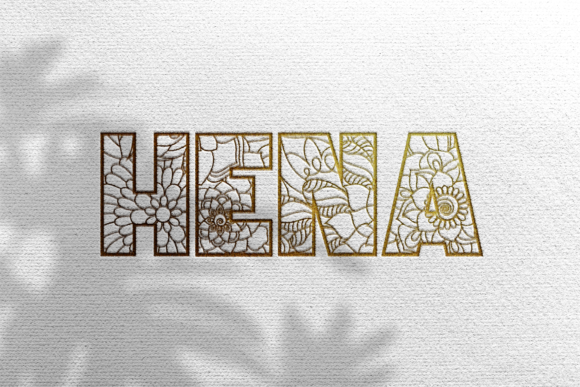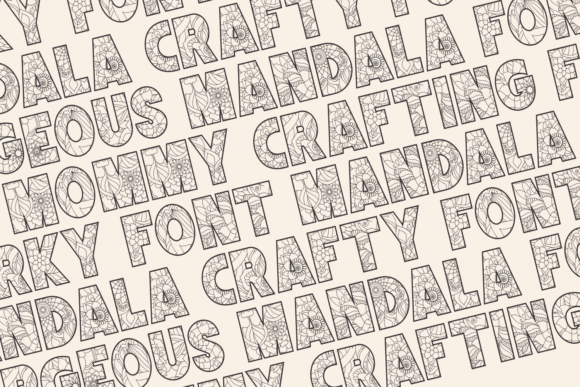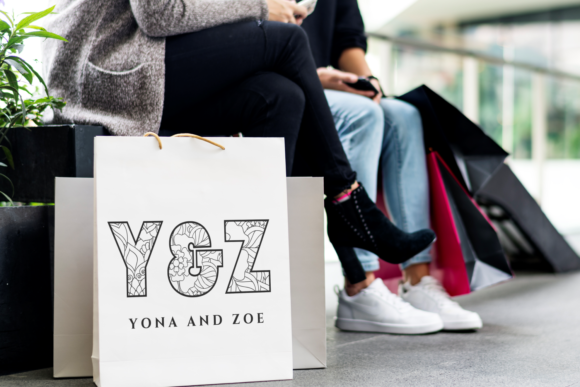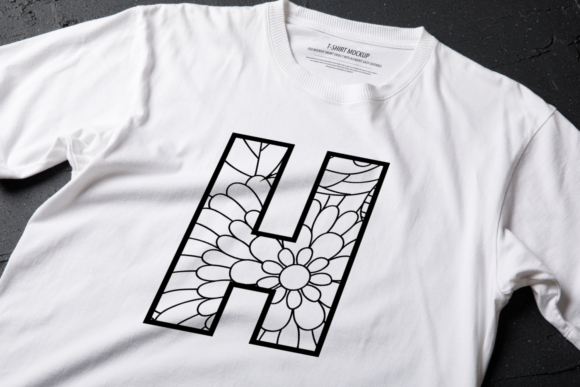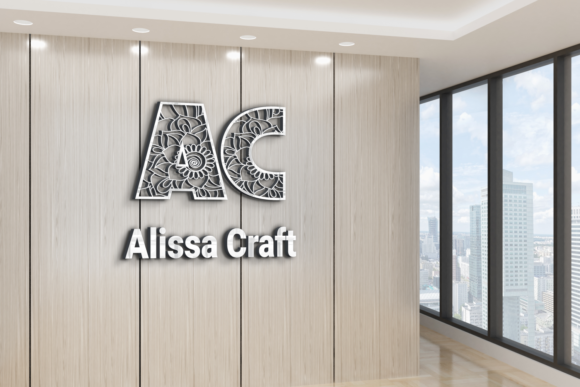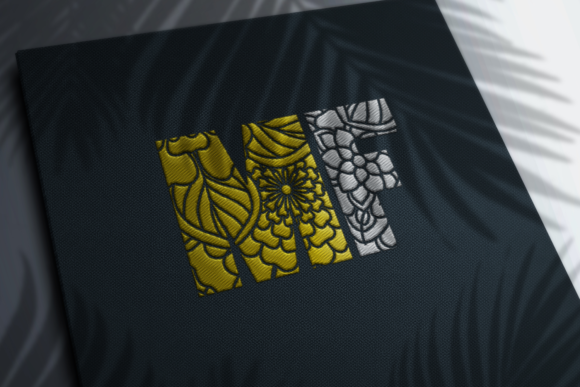
Introduction to Keyzha Font
Remember that moment when you’re brainstorming ideas for your next creative project and you’re struggling to find the perfect font to bring it to life? That’s exactly what I’m talking about. You’ve got a vision, a concept, and a whole lot of enthusiasm, but the right font is missing to tie everything together. That’s where the Keyzha Font comes in – a game-changing, high-quality display font that’s sure to elevate your design to the next level.
With its bold, chunky letters and beautiful design, the Keyzha Font is a design resource that’s hard to ignore. Whether you’re working on a graphic design project, a logo, or even just a social media post, this font is sure to make it stand out. Plus, with its transparent background option, you can easily layer it over any image or background to create a truly unique look.
Key Features of Keyzha Font
- High-quality design resource ideal for creative projects and personal use.
- Unique, modern design with a transparent background, making it perfect for overlaying on images or videos.
- Perfect for use in graphic design, digital art, and other creative pursuits, where a modern and elegant font is desired.
Honest Review: Keyzha Font
As a designer, I’m always on the lookout for high-quality design resources that can elevate my creative projects. The Keyzha Font is one such resource that I recently had the opportunity to work with.
Here are some aspects that I found particularly noteworthy:
- ✨ The Keyzha Font is incredibly versatile, making it suitable for a wide range of design applications, from headings to body text.
- ✨ The font’s transparent background feature is a game-changer for designers who want to create seamless, layered designs.
- ⚠️ The font may not be suitable for very small text sizes, as the characters can become blurry.
- ⚠️ The font’s style may not be to everyone’s taste, as it has a distinctive, modern aesthetic.
Overall, I’m impressed with the Keyzha Font’s potential to elevate my design projects. While it may have some limitations, its versatility and free download option make it a valuable resource for designers of all levels.
Tips for Getting the Most Out of Keyzha Font
Keyzha Font is a high-quality design resource that can add a touch of elegance to your creative project. To get the most out of it, use it on a transparent background to make it stand out. You can also experiment with different font sizes and colors to create a unique look.
Keyzha Font is a versatile design resource that can be used in various creative projects, including logo design, business cards, and social media graphics. It’s also a great option for designers who want to add a touch of sophistication to their designs.